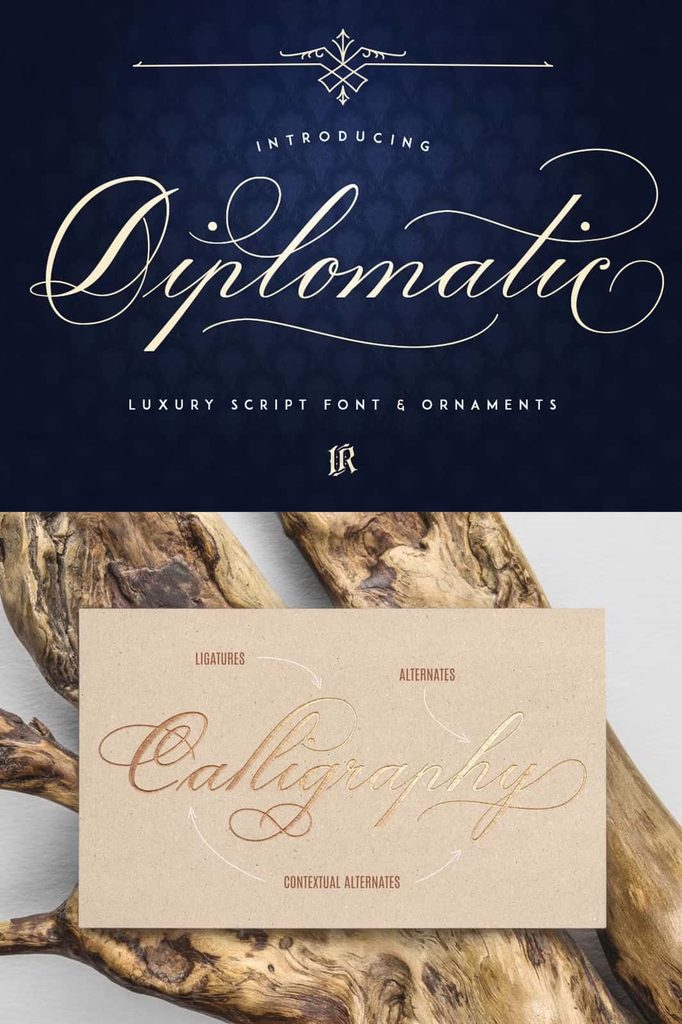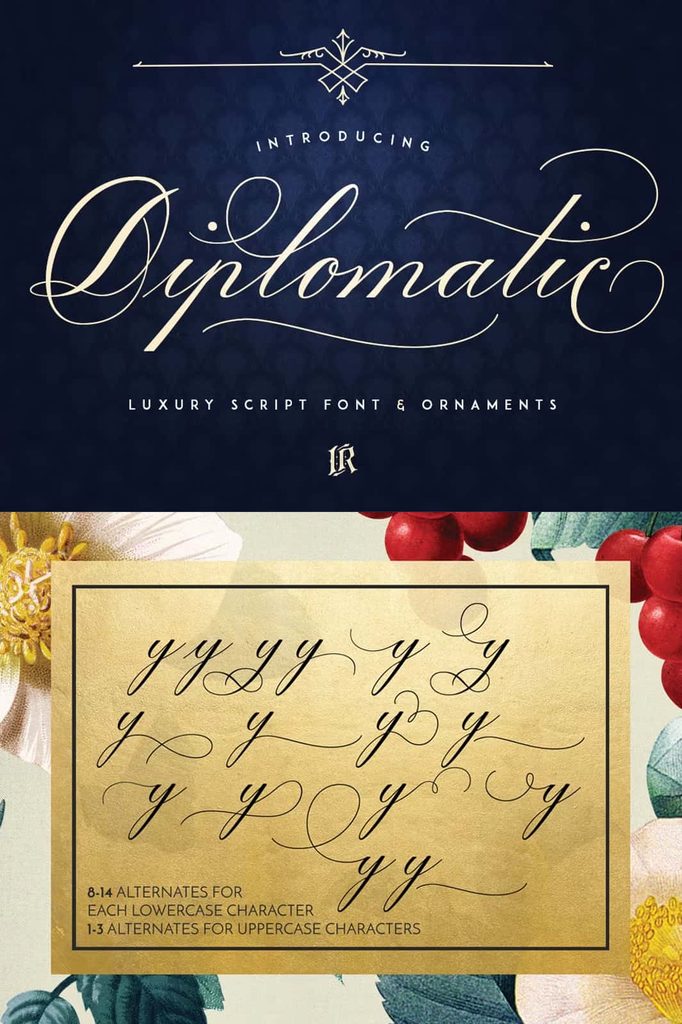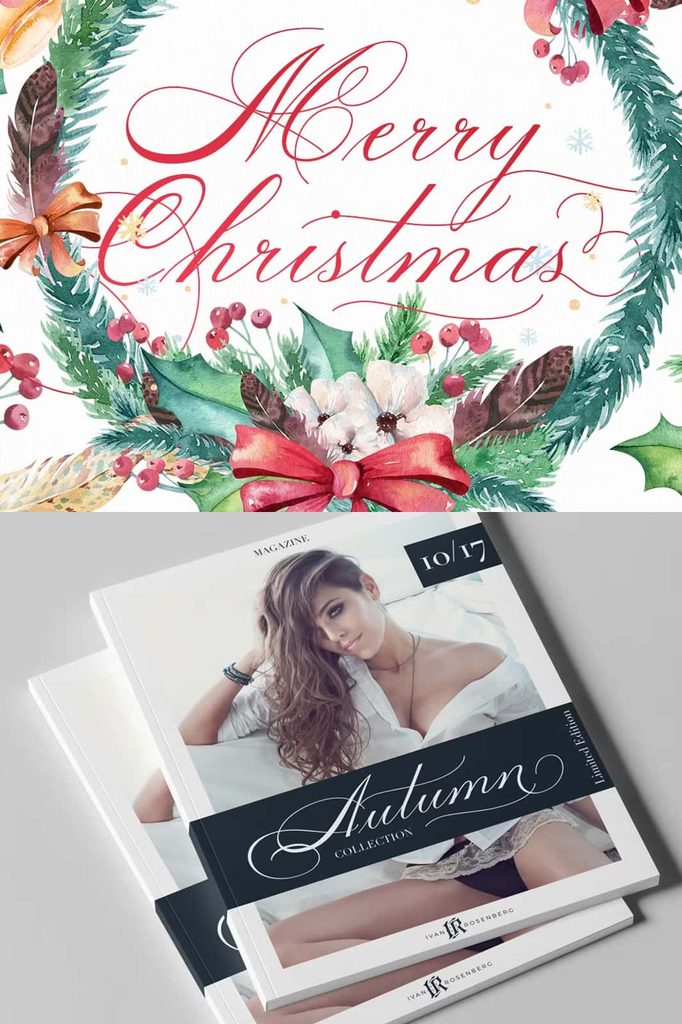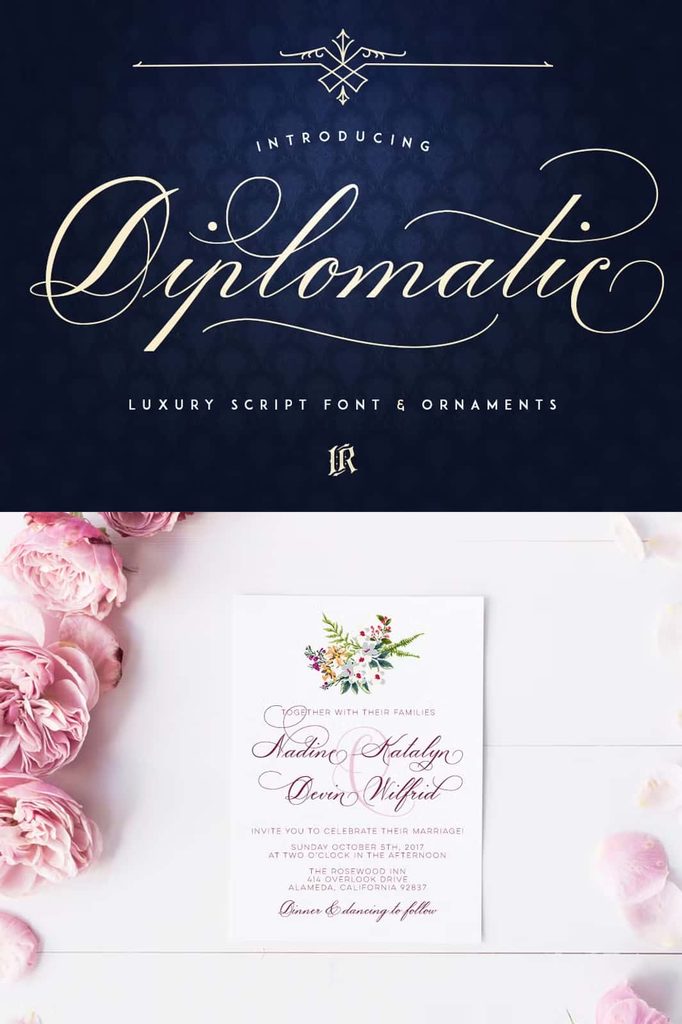
Diplomatic Font: An Elegant Formal Script Typeface
Diplomatic Font brings refined elegance, graceful lettering, and sophisticated character to a wide range of creative projects. Designed as a formal script typeface, Diplomatic creates the impression of carefully written calligraphy while maintaining the visual impact needed for modern design. Its elegant appearance makes it an excellent choice for invitations, editorial projects, menus, social media graphics, greeting cards, and other designs that require a polished and personal touch.
Script fonts can transform ordinary words into expressive visual elements, and Diplomatic takes full advantage of that quality. Its flowing letterforms create a sense of movement and sophistication, helping designers establish an elegant atmosphere from the first glance. Whether you use it for a prominent headline, a brand name, a special announcement, or a decorative phrase, Diplomatic adds personality without overwhelming the rest of your composition.
With multilingual support, Diplomatic also gives designers greater flexibility when creating projects for international audiences. This feature makes the font useful for creators, businesses, event planners, and brands that communicate across different languages and markets.
A Formal Script Font with Timeless Elegance
Diplomatic captures the graceful qualities associated with traditional formal lettering while presenting them in a format that suits contemporary design. Its script character creates an upscale appearance that can instantly elevate invitations, promotional graphics, stationery, and branding materials.
The flowing nature of the lettering works especially well when you want to communicate celebration, luxury, romance, creativity, or sophistication. Instead of using a plain typeface for important messages, you can use Diplomatic to make the words themselves become part of the decoration.
Its formal personality makes it particularly effective for special occasions. Wedding invitations, anniversary announcements, engagement stationery, birthday invitations, and greeting cards can all benefit from the refined character of the typeface.
Perfect for Wedding Invitations and Special Events
Wedding stationery demands typography that feels personal, elegant, and memorable. Diplomatic provides exactly that kind of visual character. Use the font for names, wedding titles, invitation headings, dates, venue information, or decorative phrases.
Pair Diplomatic with a clean serif or minimalist sans serif to create contrast and hierarchy. Let the script handle the most expressive elements while the supporting typeface communicates practical information clearly. This combination can produce an elegant invitation that feels both sophisticated and easy to read.
Beyond weddings, Diplomatic works beautifully for engagement parties, anniversaries, bridal showers, birthday celebrations, formal dinners, and other special events. Its graceful appearance helps establish a premium atmosphere across printed and digital materials.
Create Elegant Invitation Designs
Use Diplomatic to emphasize the most important details of an invitation. Highlight names, event titles, or special messages with the script, then organize supporting information using a simpler complementary font. This approach gives your design a clear visual hierarchy while preserving its elegant character.
Bring Sophistication to Magazine and Editorial Design
Diplomatic can also add an expressive touch to magazines, lookbooks, fashion publications, lifestyle editorials, and promotional layouts. Designers can use the font for feature titles, cover typography, section headings, pull quotes, or decorative text.
Its formal script style works particularly well with fashion and luxury-oriented imagery. Combine it with high-quality photography, generous spacing, and restrained layouts to create an editorial aesthetic that feels sophisticated and contemporary.
Because script fonts naturally attract attention, use Diplomatic strategically within larger editorial compositions. Applying it to selected words or short phrases can create contrast while keeping the overall layout clean.
Ideal for Restaurant Menus and Food Branding
Restaurant menus often need to communicate atmosphere as well as information. Diplomatic can help restaurants, cafés, catering companies, bakeries, and event venues establish a more refined visual identity.
Use the font for restaurant names, menu headings, signature dishes, special announcements, or decorative descriptions. Its elegant appearance can complement romantic restaurants, upscale dining concepts, dessert brands, boutique cafés, and event catering businesses.
For menus containing large amounts of information, combine Diplomatic with a highly readable serif or sans serif. This strategy lets the script create visual personality while the supporting font keeps menu details easy to scan.
Make Social Media Graphics More Memorable
Social media designs compete for attention, so distinctive typography can make a significant difference. Diplomatic allows you to create expressive posts, promotional graphics, announcements, quotes, and campaign visuals with an elegant handwritten appearance.
Use it for short headlines, inspirational messages, product names, event announcements, or branded statements. The flowing script can make simple phrases feel more polished and visually interesting.
Diplomatic can also help create a consistent identity for social media accounts. When you use the font repeatedly across campaigns, announcements, and promotional graphics, audiences can begin to associate its distinctive style with your brand.
Beautiful for Greeting Cards and Invitations
Greeting cards benefit from typography that feels personal and heartfelt. Diplomatic provides a handwritten quality that can make messages feel more intentional and expressive.
Use the font for birthday cards, thank-you cards, congratulations, holiday stationery, anniversary messages, and personalized notes. Its formal script style can adapt to both sophisticated and celebratory compositions depending on the supporting graphics and layout.
Birthday and Celebration Designs
Create elegant birthday invitations and celebration graphics by using Diplomatic for names, titles, and decorative messages. Pair the font with subtle ornaments, illustrations, or photography to reinforce the occasion.
Personalized Stationery
Design personalized cards, letters, stationery, and announcements with Diplomatic. Its script character gives each message a more intimate appearance and helps transform simple text into a decorative design element.
Multilingual Support for Flexible Design
One of the most practical features of Diplomatic is its multilingual support. This capability allows designers to use the typeface for projects that need to communicate with audiences across different languages.
Multilingual typography can help international brands maintain a more consistent visual identity. Instead of replacing an elegant script with a completely different typeface for another language, designers can maintain a cohesive aesthetic wherever the supported characters are available.
This makes Diplomatic a useful option for global event invitations, international marketing campaigns, multilingual social media graphics, hospitality materials, and other projects that require flexible communication.
Creative Ways to Use Diplomatic Font
Diplomatic offers many possibilities beyond its primary applications. Consider using the font for:
- Wedding invitations and stationery
- Engagement announcements
- Birthday invitations
- Greeting cards
- Restaurant menus
- Café branding
- Magazine covers
- Editorial layouts
- Fashion branding
- Event posters
- Luxury branding
- Personalized stationery
- Promotional materials
- Special event announcements
Pair Diplomatic with Complementary Fonts
A formal script can become even more effective when you combine it with a contrasting typeface. Pair Diplomatic with a clean sans serif to create a modern and sophisticated composition. Alternatively, combine it with an elegant serif for a more traditional and luxurious aesthetic.
Use the script selectively for headlines, names, or short phrases, and allow the supporting font to handle longer passages. This approach maintains readability while giving the design a distinctive focal point.
Create Designs with a Personal Touch
Diplomatic helps designers communicate emotion through typography. Its formal script style suggests elegance and care, making it ideal for projects where the message needs to feel special. Whether you create a wedding invitation or a restaurant menu, the font can add a human quality that standard typefaces often struggle to achieve.
The typeface also gives you room to experiment. Adjust the size, spacing, alignment, and surrounding elements to create different moods. Use large lettering for dramatic statements or smaller script details for subtle decorative accents.
Why Choose Diplomatic Font?
Choose Diplomatic Font when your project requires elegant, expressive, and sophisticated typography. Its formal script style provides a strong visual identity, while multilingual support expands its usefulness for international and diverse creative projects.
From romantic wedding stationery to polished editorial layouts, Diplomatic adapts to a wide range of applications. Its graceful appearance helps brands and designers communicate refinement while giving every project a distinctive handwritten character.
Final Thoughts on Diplomatic Font
Diplomatic Font combines formal elegance with expressive script lettering to create a versatile typeface for modern creative projects. Its sophisticated appearance makes it an excellent choice for weddings, invitations, magazines, social media graphics, restaurant menus, greeting cards, birthday designs, branding, and many other applications.
Use Diplomatic to transform ordinary text into an elegant visual statement. Combine it with complementary fonts, thoughtful layouts, and carefully selected design elements to create work that feels personal, polished, and memorable. With its multilingual support and graceful script character, Diplomatic gives designers a flexible tool for expressing important messages with style.